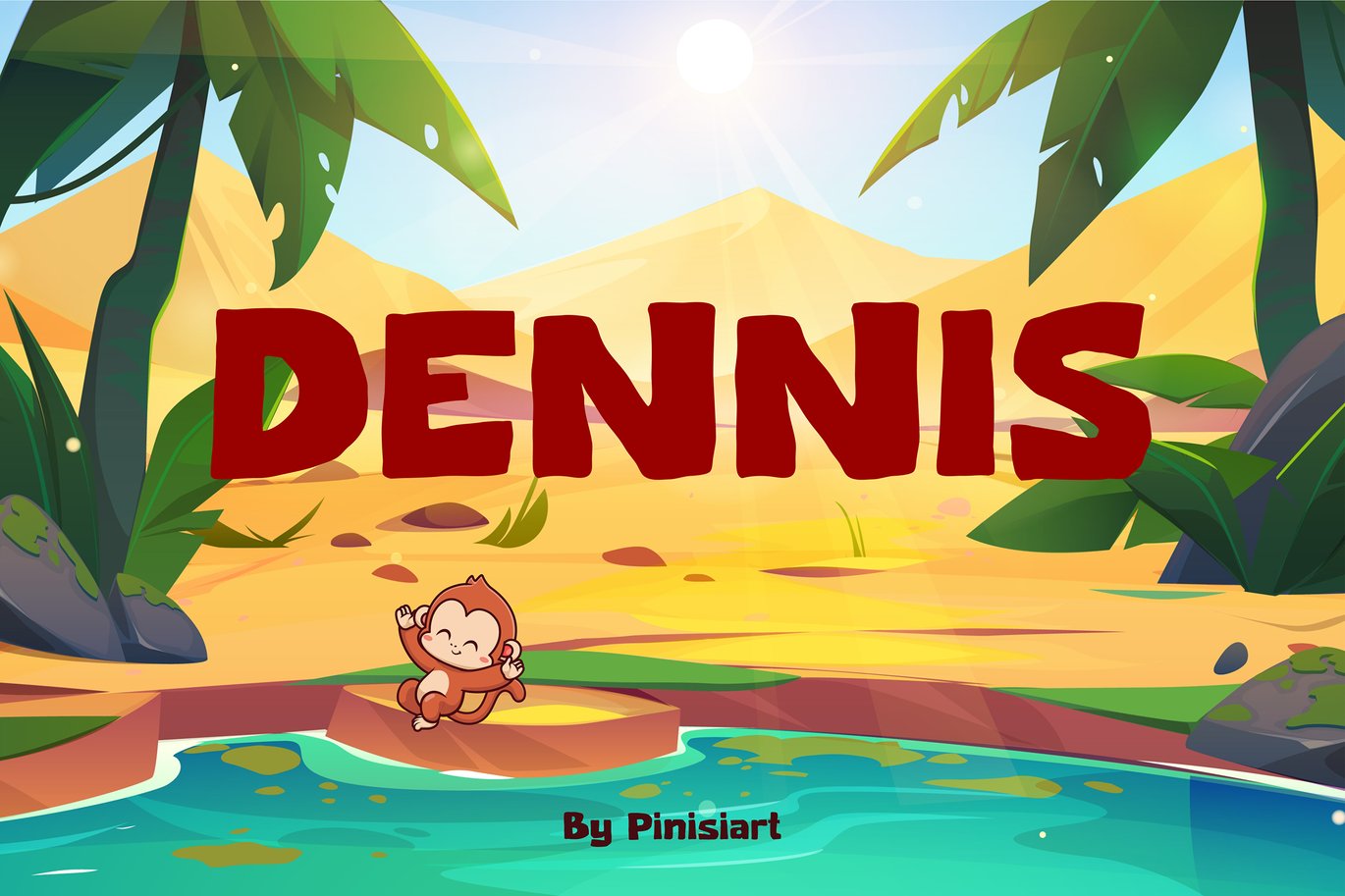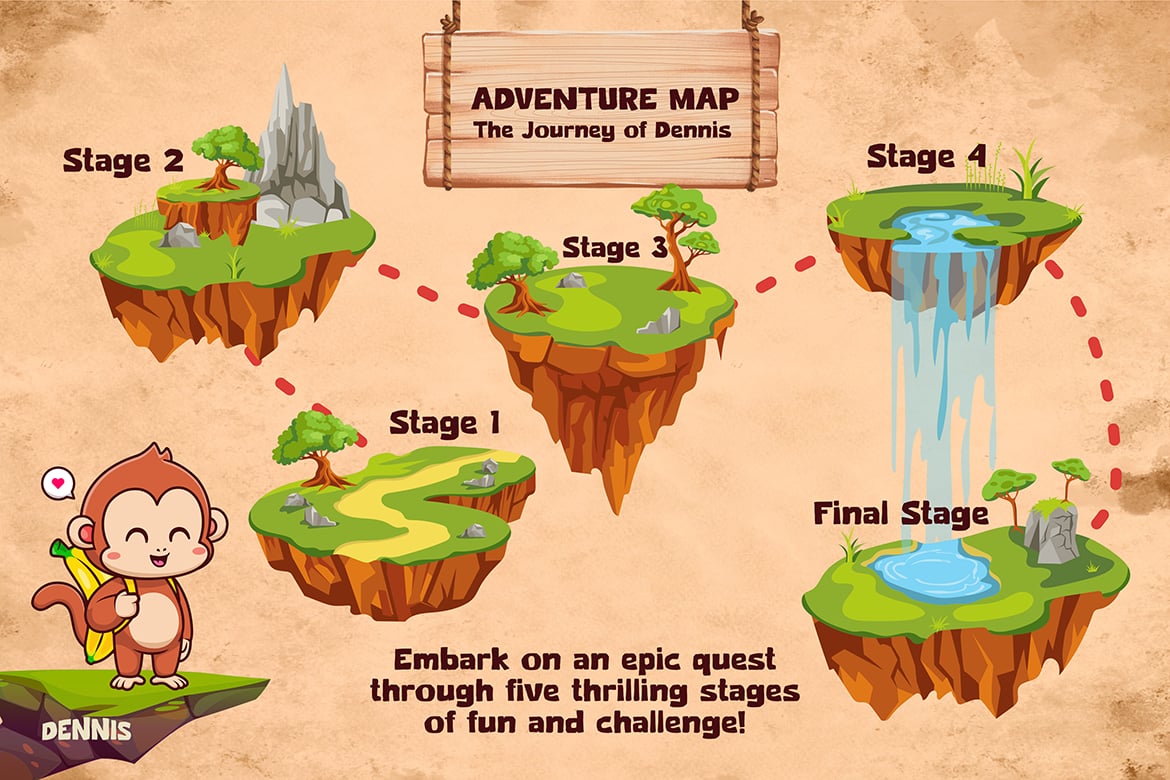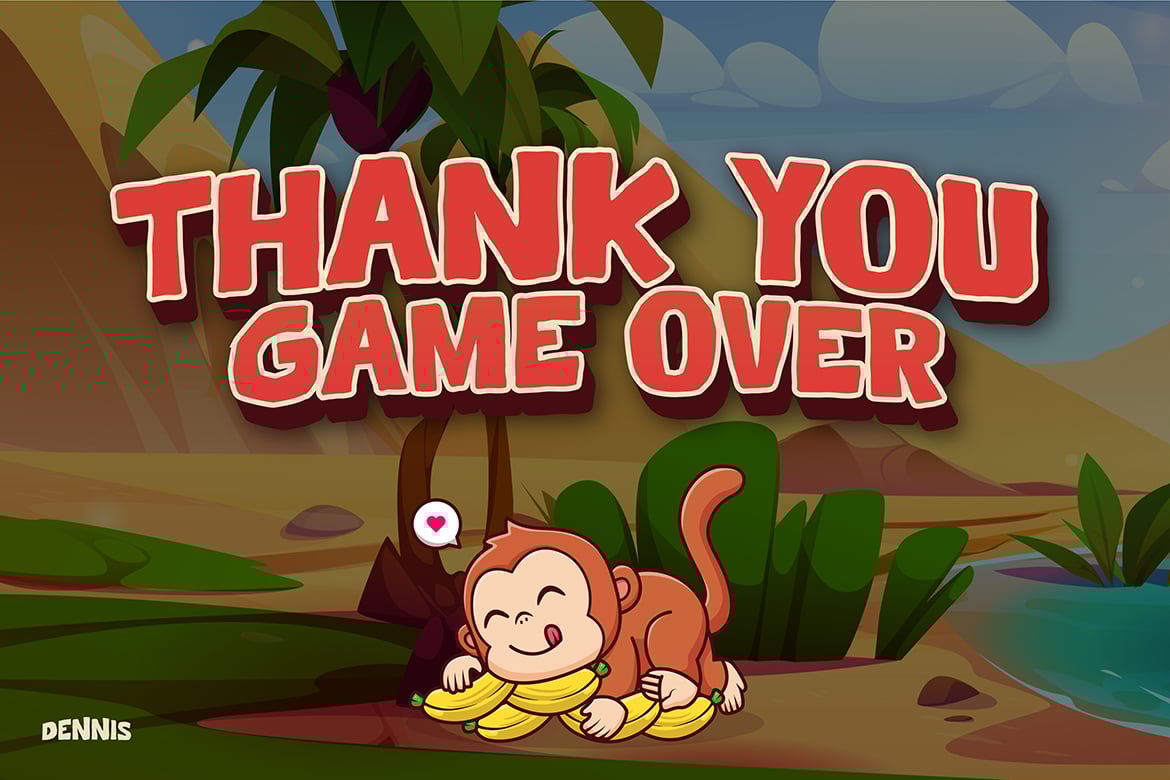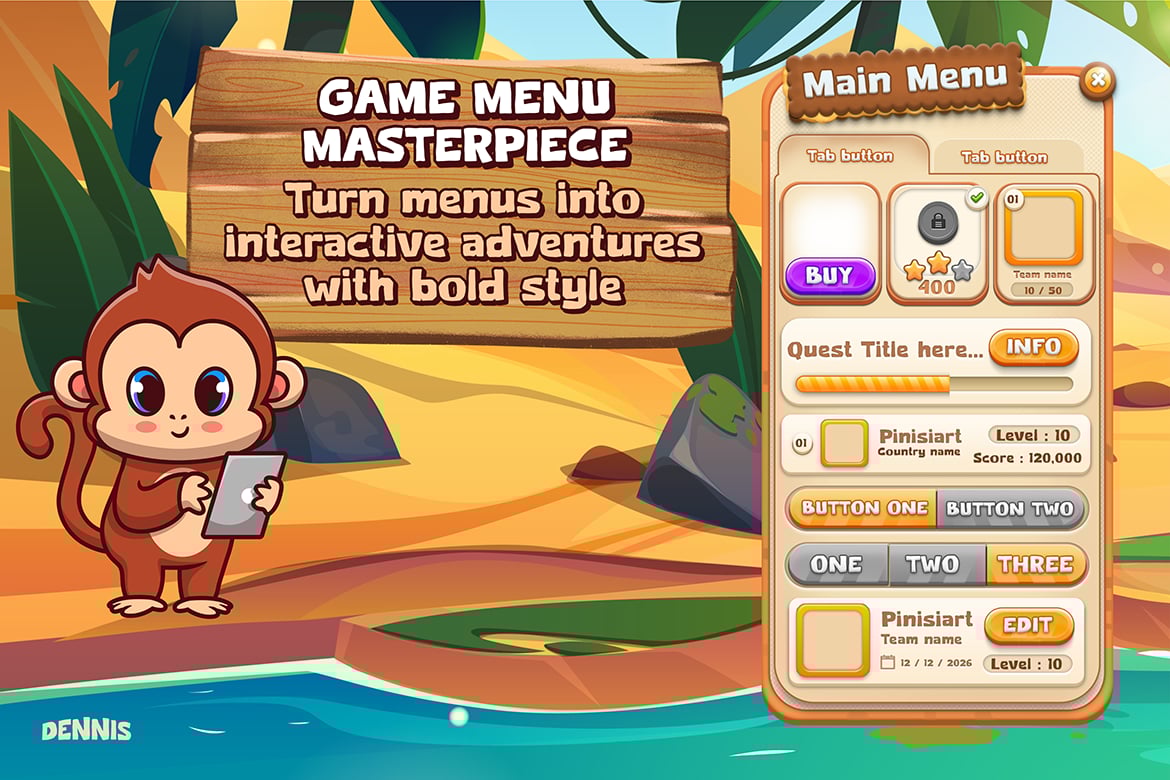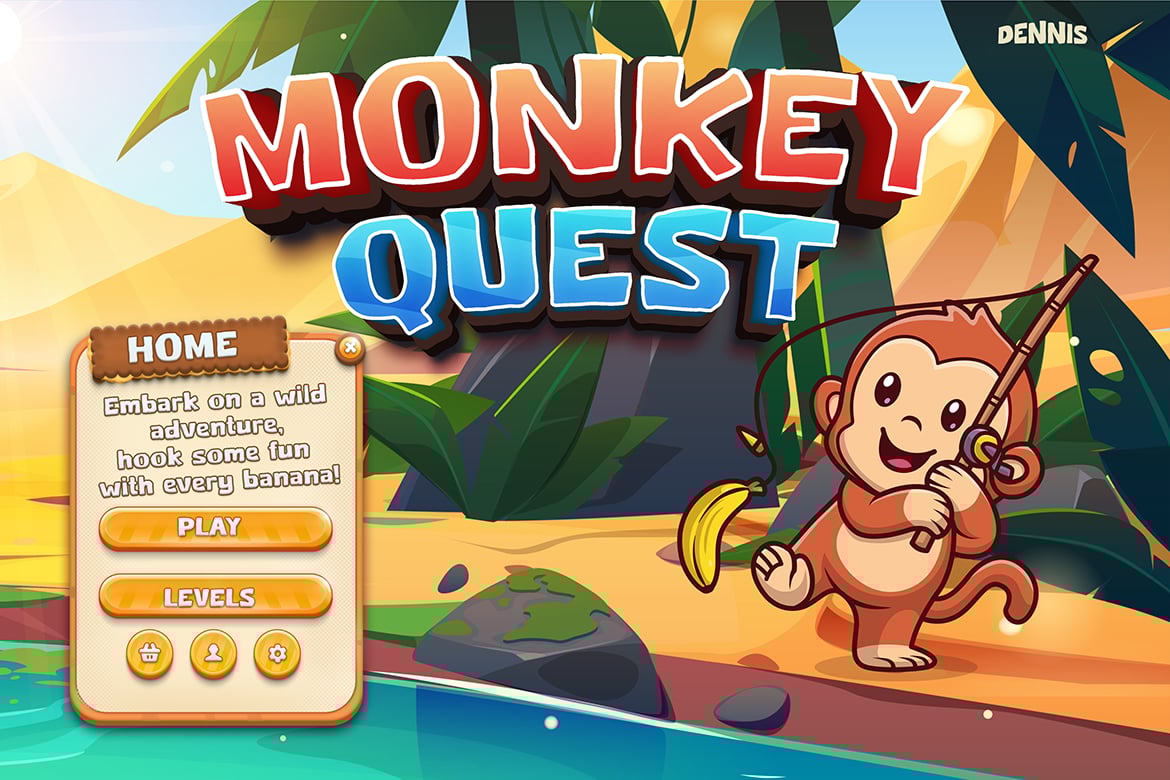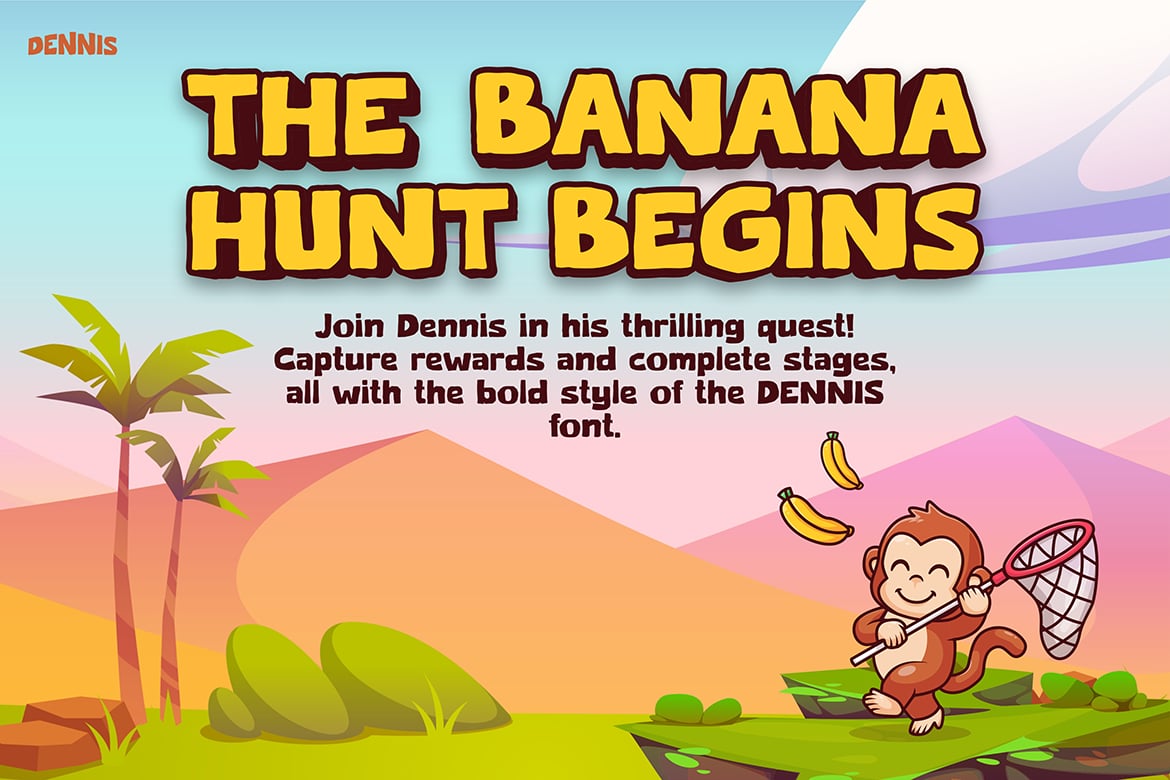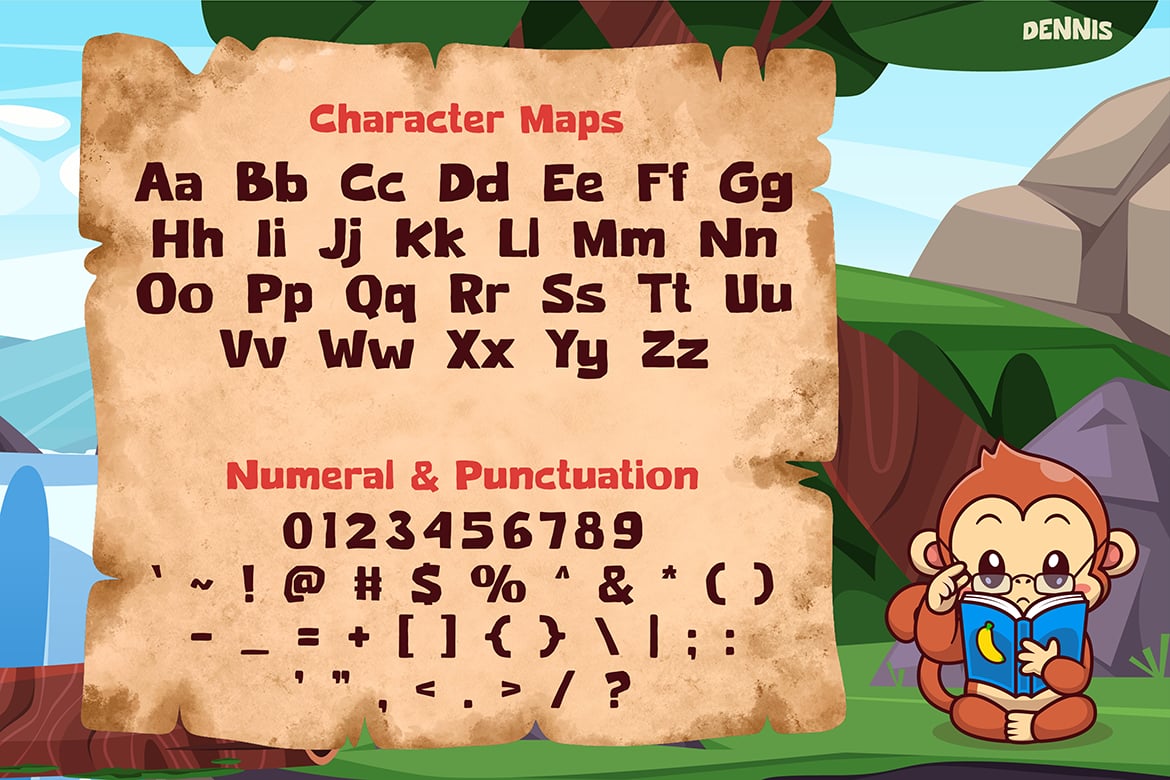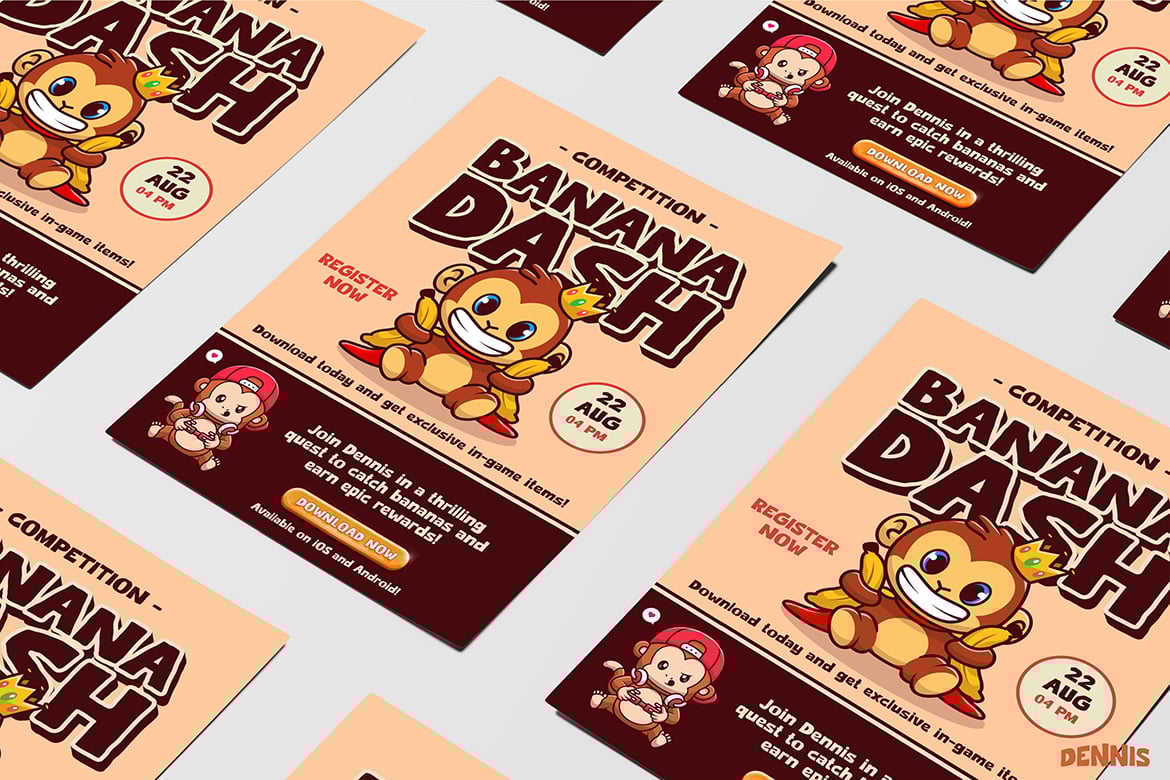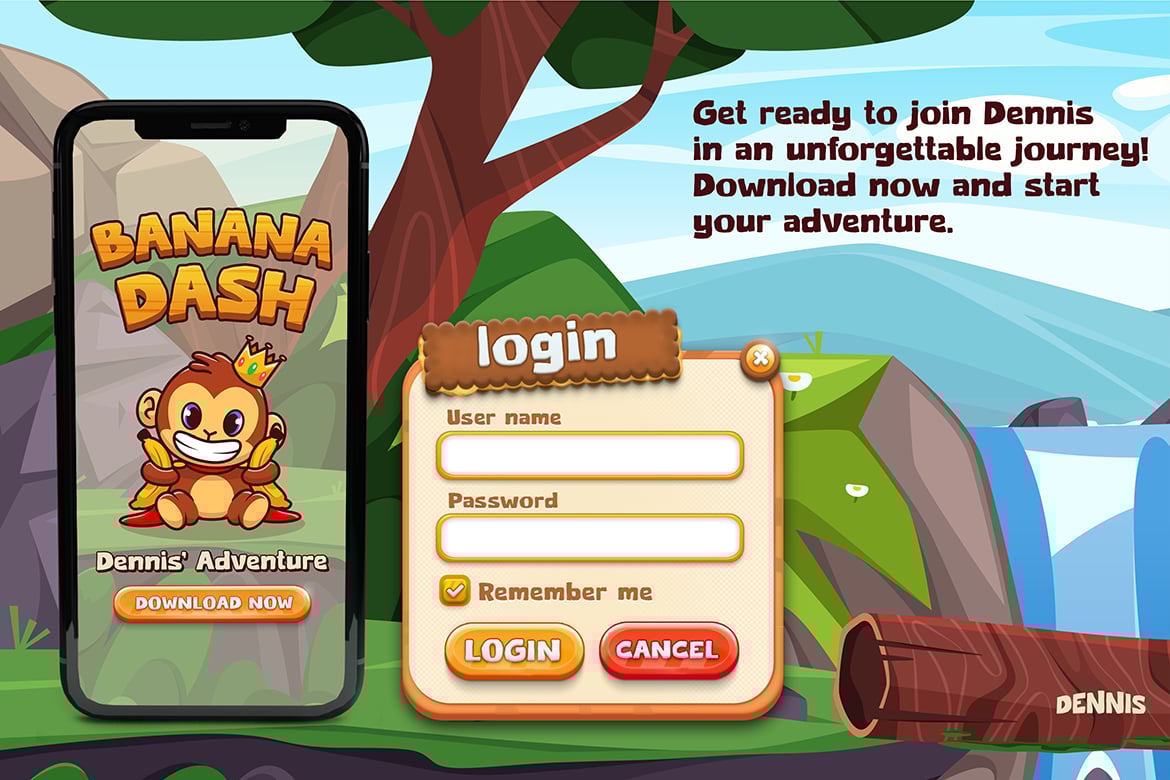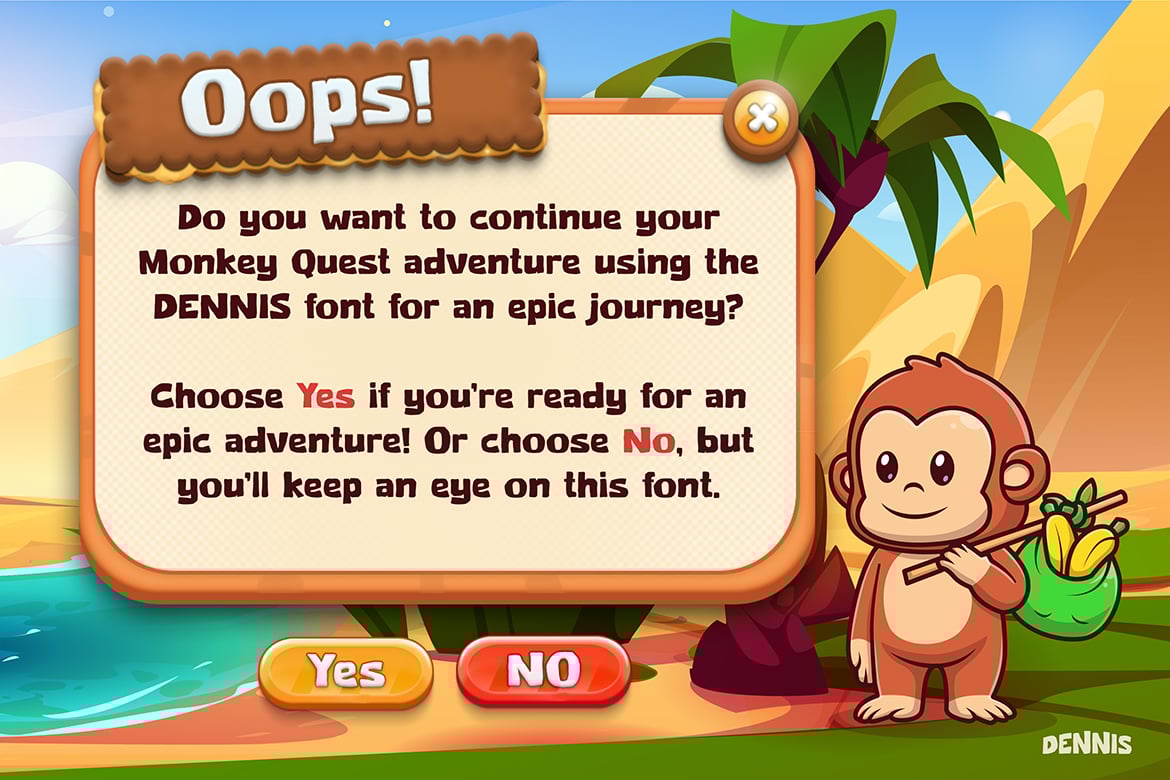
Gaming Font – Dennis
Dennis is a whimsical and playful font designed specifically for the vibrant world of children’s cartoons.
With its rounded edges and friendly letterforms, this font captures the joy and excitement of playful animal characters in games. Its fun and engaging style is perfect for drawing in young audiences while also appealing to the nostalgic hearts of adults who cherish childhood memories.
Market Applications:
Children’s Games and Educational Materials: Dennis is ideal for use in children’s video games and educational apps, where its playful style can enhance the gaming experience and make learning fun and engaging.
Cartoon Merchandise and Branding: The font can be applied in merchandise such as T-shirts, toys, and stationery that feature animal characters, creating a cohesive and appealing brand identity that resonates with kids and parents alike.
Storybooks and Children’s Literature: Dennis is perfect for children’s books, lending a lively touch to stories that feature animal adventures, captivating young readers and making the text more inviting. 4.
Posters and Promotional Materials for Family-Friendly Events: Use Dennis in posters, flyers, and other promotional materials for events like fairs, festivals, or exhibitions aimed at families, where its vibrant design can draw attention and create excitement.
Animated Series and Videos Targeting a Young Audience: The font’s playful and fun character makes it suitable for titles, subtitles, and credits in animated series, cartoons, or educational videos designed for children, enhancing the overall visual appeal.